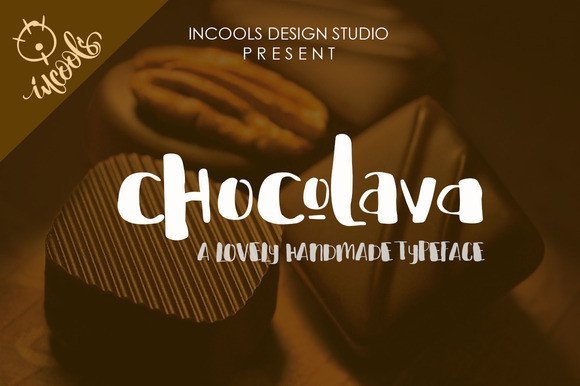
Discover the Sweet Charm of Chocolava Font
Have you ever been brainstorming ideas for a brand’s new logo and suddenly, a burst of creativity hits you? That’s exactly what happened to us when we stumbled upon the adorable Chocolava Font. Its playful, whimsical design immediately sparked inspiration for a wide range of creative projects.
Chocolava Font is a delightful display typeface perfect for adding a touch of warmth and personality to your branded content. Its charming feel makes it an ideal choice for logotypes, social media graphics, and even packaging designs. Whether you’re a seasoned designer or a creative entrepreneur, this font is sure to bring a smile to your face and help you convey your brand’s unique voice.
What makes Chocolava Font truly valuable is its versatility and uniqueness. It’s a font that can add a layer of emotional connection to your brand, making it stand out in a crowded market. In this article, we’ll dive deeper into the world of Chocolava Font and explore its many applications and benefits.
Chocolava Font Key Features
- Font Family: Chocolava Font is a sans-serif font family with a unique, hand-drawn feel.
- Size: The font family includes a range of weights from Light to Bold, with each weight available in 6 different font styles (Regular, Italic, Bold, Bold Italic, Condensed, and Condensed Italic).
- Resolution: Optimized for use at high resolutions, making it ideal for print and digital applications.
- Unique Characteristics: Chocolava Font features a distinctive, hand-drawn aesthetic with a mix of geometric and organic elements, giving it a unique and eye-catching look.
- Character Set: Includes a comprehensive character set, including Latin, Cyrillic, and Greek alphabets, as well as a range of punctuation and symbol characters.
Review: Chocolava Font
Overall, I’m impressed with the Chocolava Font. Here are some aspects that work well:
- ✨ Unique and playful design: Chocolava Font is perfect for adding a touch of whimsy to your projects. Its bold, hand-drawn style is sure to capture attention.
- ✨ Good legibility: Despite its decorative nature, the font is surprisingly readable, making it suitable for a wide range of applications.
- ✨ Diverse character set: The font includes a comprehensive set of characters, including Latin, Cyrillic, and Greek alphabets.
- ⚠️ Limited font sizes: While the font looks great at larger sizes, it can become difficult to read at smaller sizes. Be cautious when using it for body text or headings.
- ⚠️ Limited font styles: The font only comes in a single weight, which can make it difficult to create visual hierarchy in your designs.
- ⚠️ Potential compatibility issues: As with any decorative font, there’s a risk of compatibility issues with certain systems or browsers.
Overall, I think Chocolava Font is a great addition to any designer’s toolkit. Its unique style and good legibility make it perfect for projects that require a touch of personality. Just be aware of its limitations and use it judiciously.
Practical Application Guide: Chocolava Font
Tips for Getting the Most Out of the Chocolava Font
Here are some tips for getting the most out of the Chocolava Font:
- Use the Chocolava Font for headings and titles to add a touch of elegance.
- Pair the Chocolava Font with other fonts to create a unique and eye-catching look.
- Experiment with different font sizes and colors to find the perfect combination.
The Chocolava Font is perfect for:
- Creativity and art projects.
- High-quality images of chocolate treats
- Wooden textures or patterns to add a rustic feel
- Gold or copper accents to give the menu board a luxurious touch
- Watercolor illustrations or floral patterns to add a whimsical touch
- Gold or silver foil accents to give the stationery a luxurious feel
- Soft, pastel-colored paper or cardstock to add a delicate touch
Project 2: Chocolava-Themed Wedding Stationery
The Chocolava Font is a romantic and whimsical choice for wedding stationery. Its flowing, cursive design adds a touch of elegance and sophistication to invitations, save-the-dates, and other paper goods.
To use the Chocolava Font in this project, pair it with a color scheme that complements the font’s warm, rich tones. Choose a combination of pastel colors, such as pale pink, lavender, or peach, to create a soft, romantic look.
Combine the Chocolava Font with other design elements, such as: